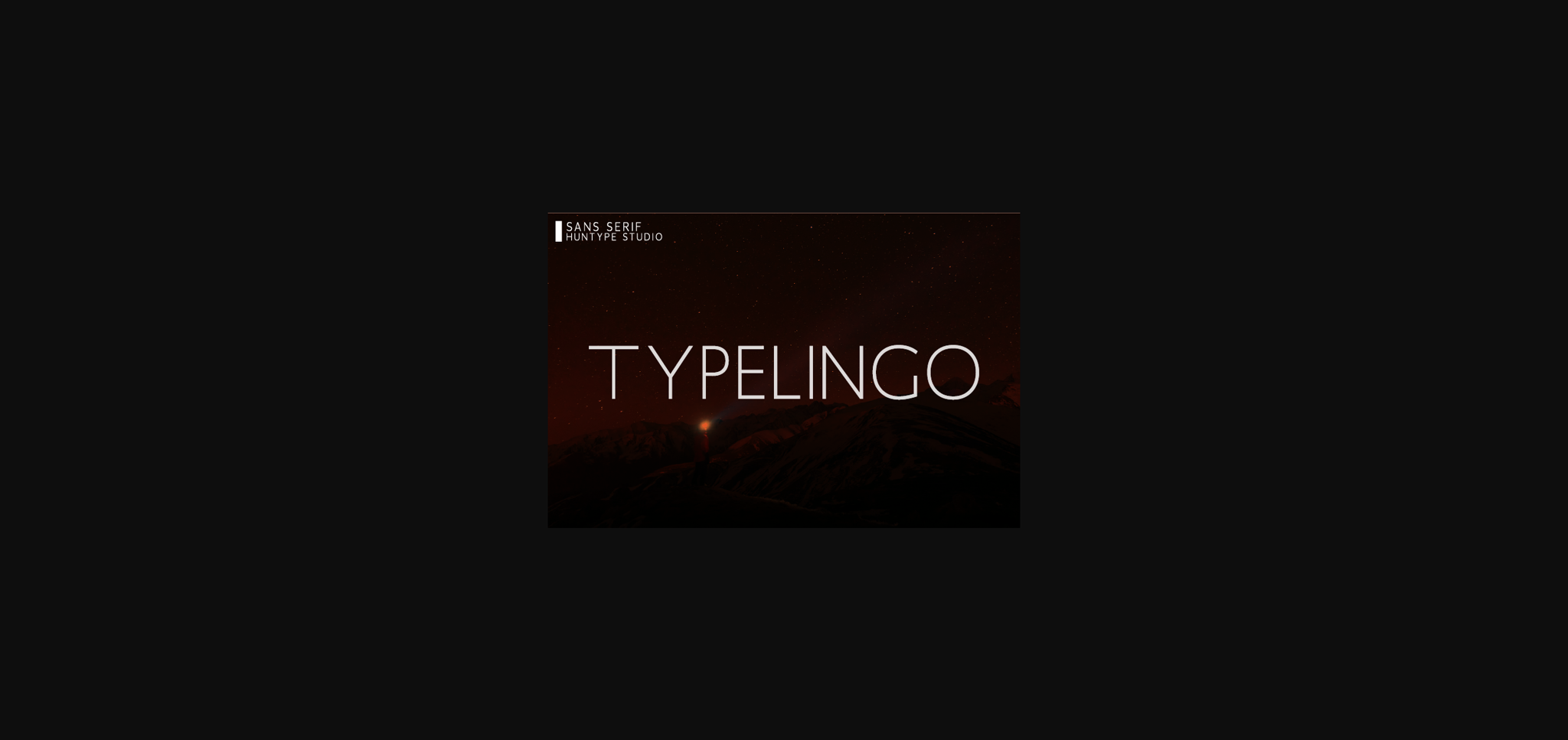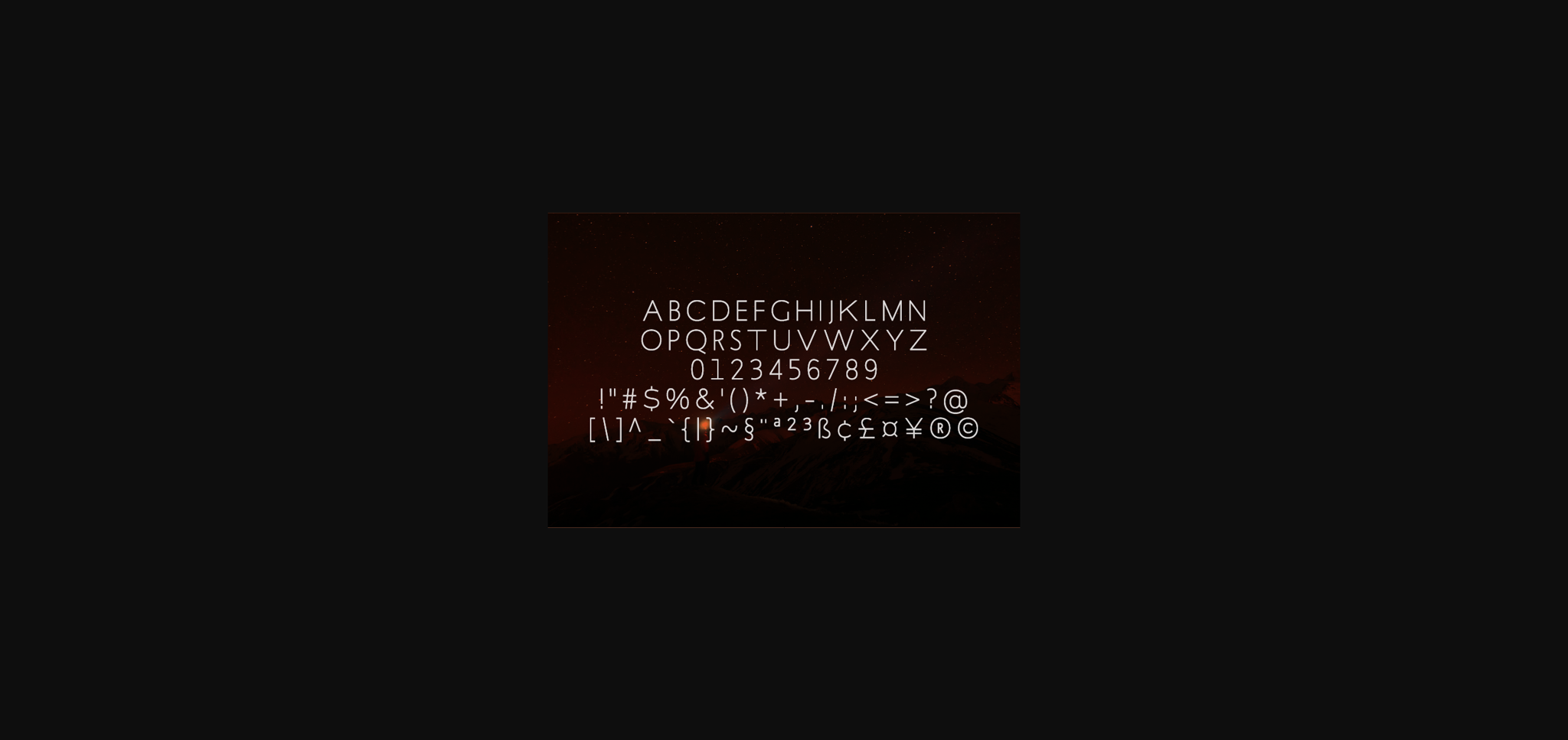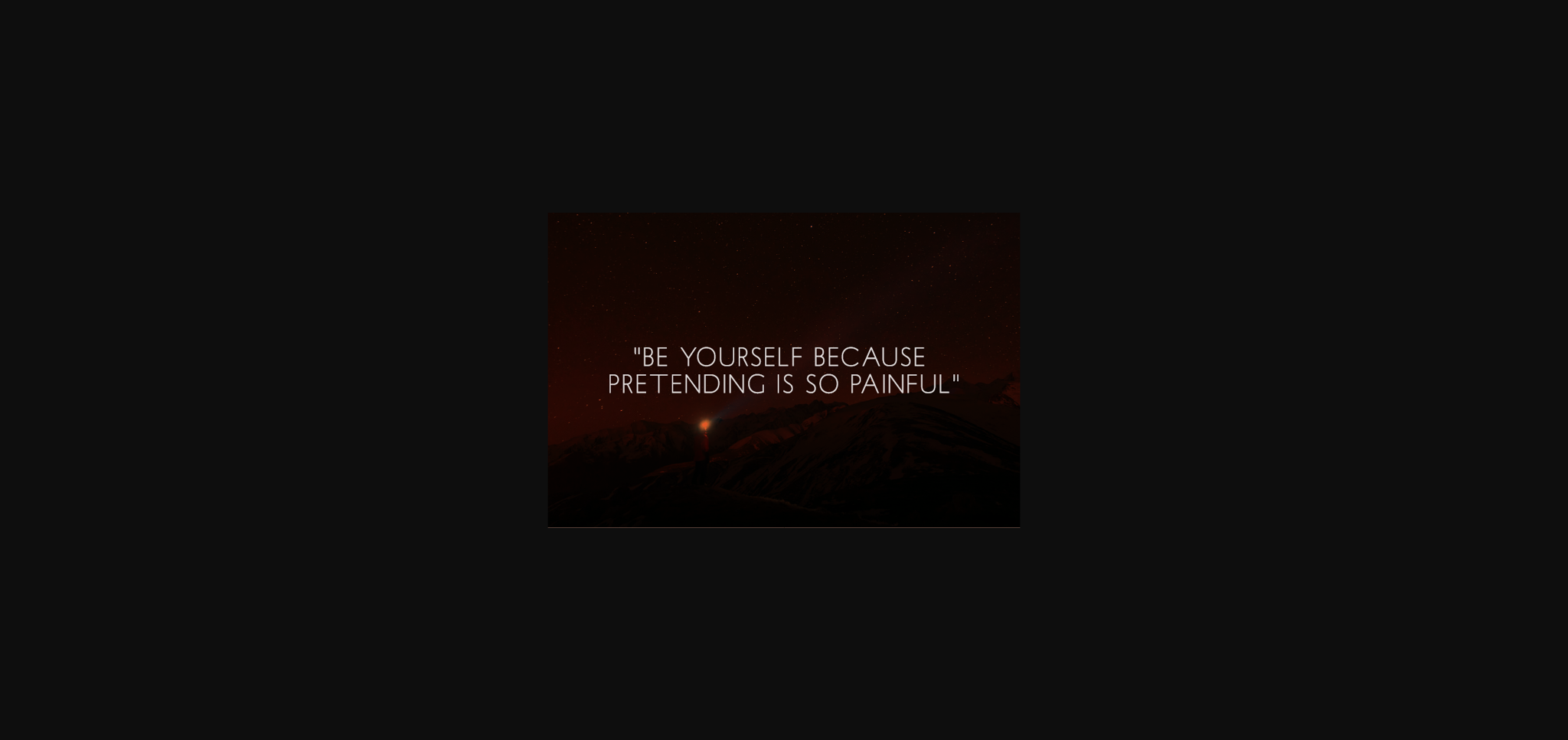
Typelingo Font
About Typelingo Font
Typelingo is a modern and clean sans serif font that is versatile and looks great in just about any context. With smooth and clean lines, and just a touch of contrast, Typelingo works beautifully for logos, branding, web headings and much more.